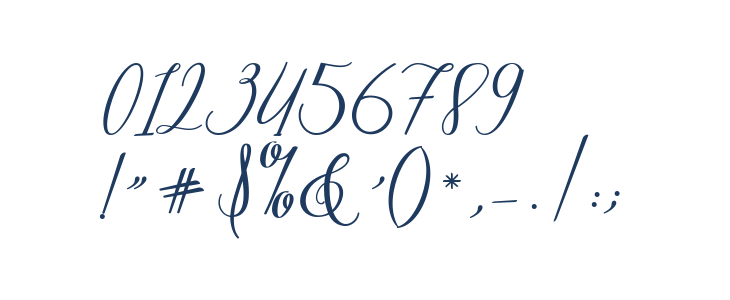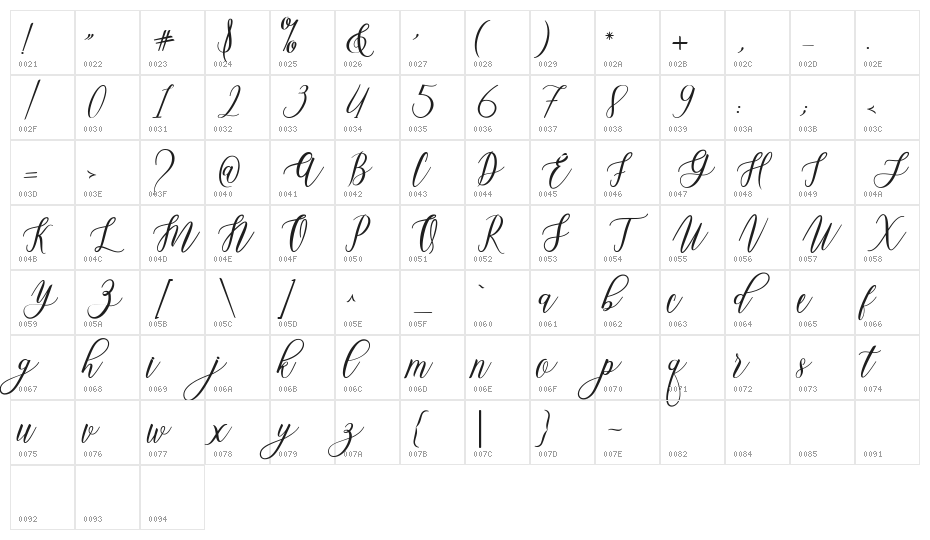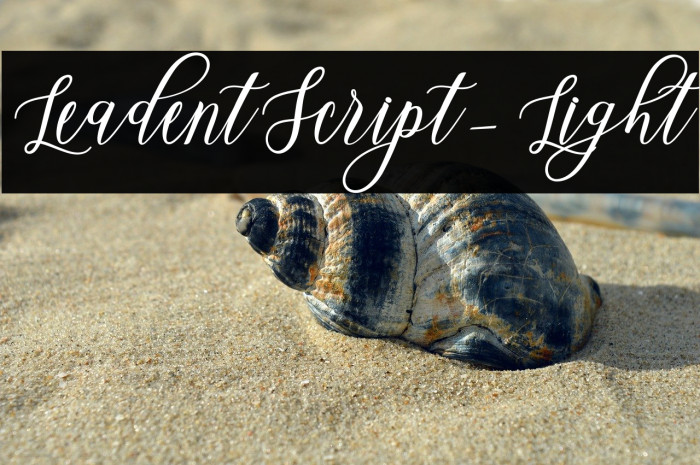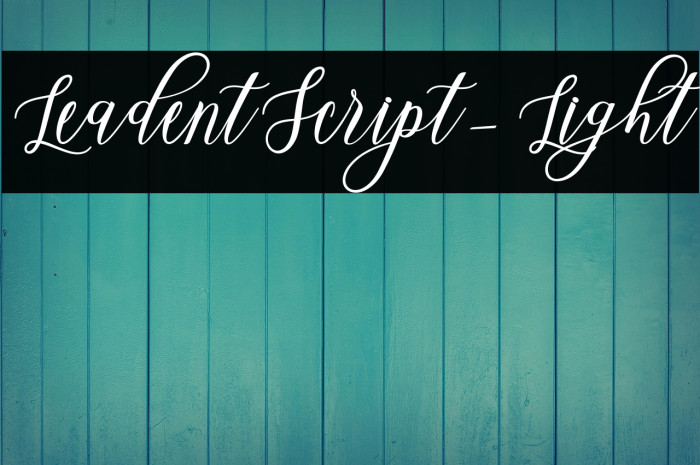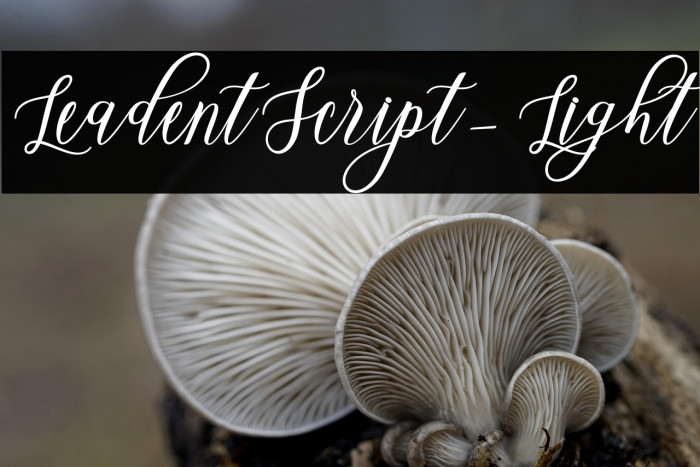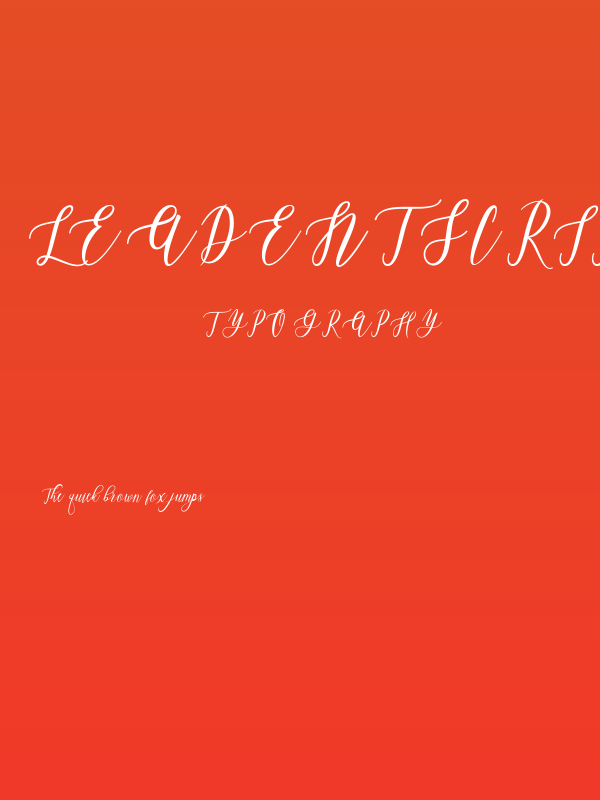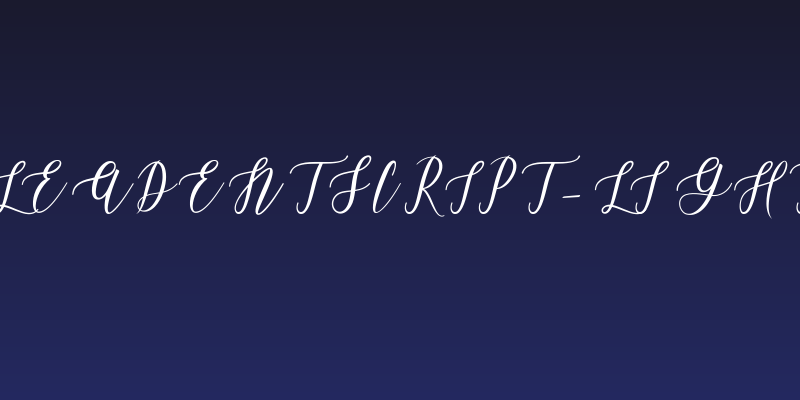
LeadentScript-Light Font
LeadentScript-Light Description
This elegant script font features flowing, interconnected characters that exude a sense of sophistication and grace. The uppercase letters are characterized by their sweeping ascenders and descenders, creating a dynamic and fluid appearance. The lowercase letters maintain a consistent style, with smooth curves and delicate loops that enhance the font's overall aesthetic. Numbers and special characters are designed to complement the script's refined nature, ensuring a cohesive look across all elements. The font's light weight adds to its airy and delicate feel, making it suitable for projects that require a touch of elegance and refinement.
| Proposed Projects | Ideal for wedding invitations, elegant branding, personal stationery, and upscale packaging. |